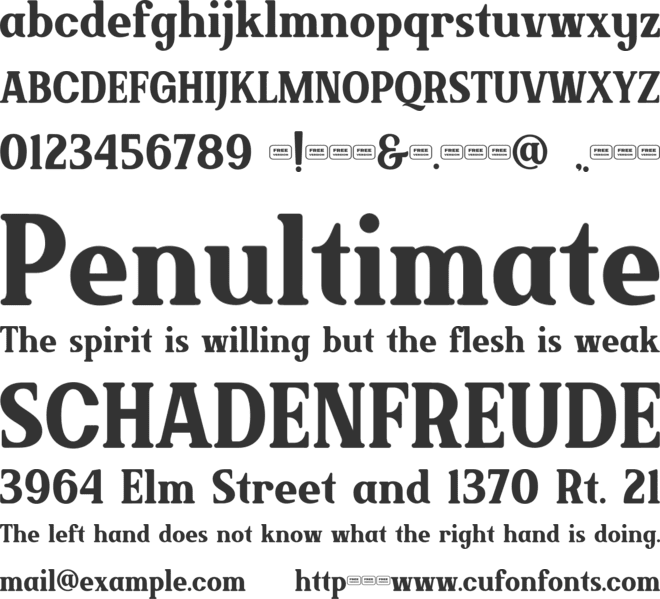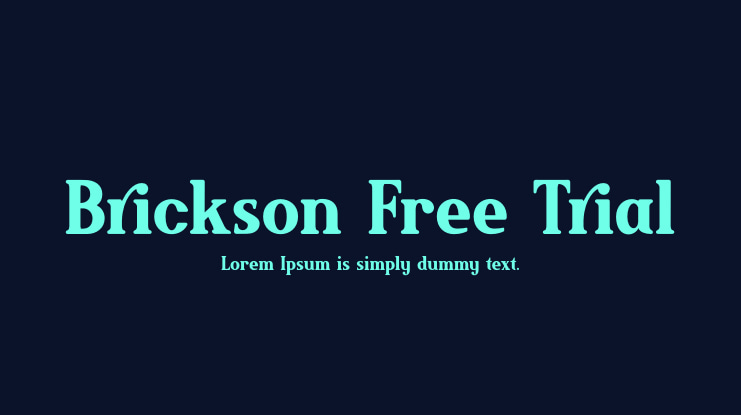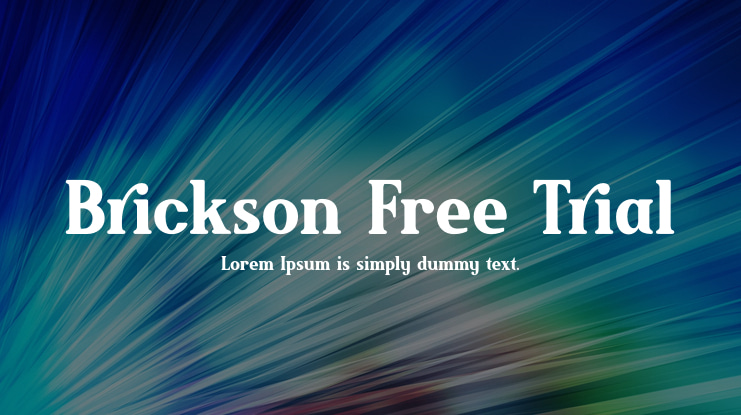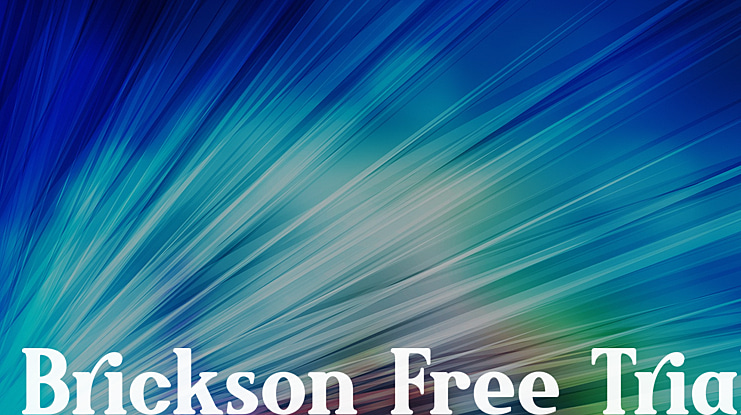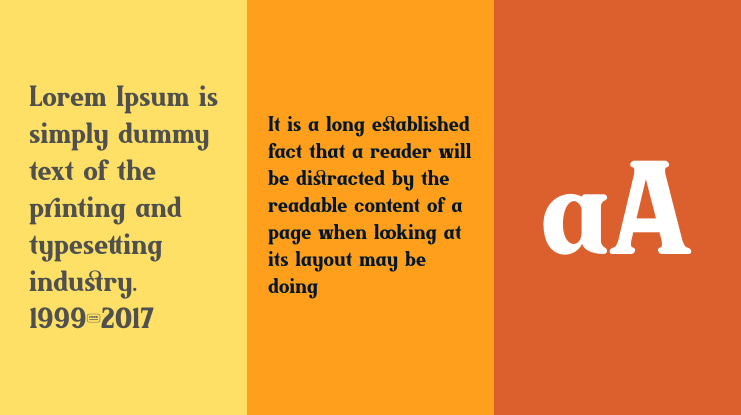
Brickson Free Trial Font
Brickson is a distinct, elegant serif that blends traditional influences into a contemporary aesthetic. Elegantly crafted and easily be matched to an incredibly large set of projects. Use Brickson to achieve an exquisite, yet subtle look and maximum versatility.